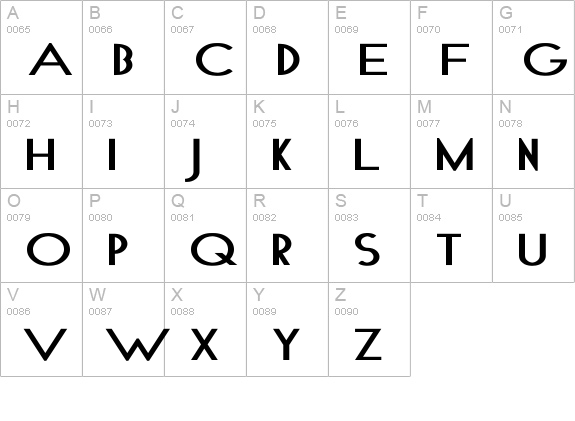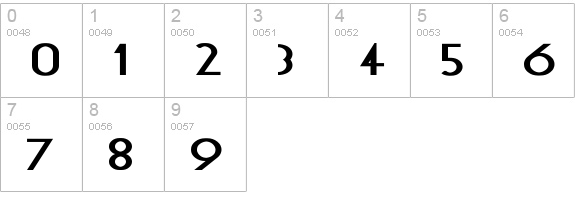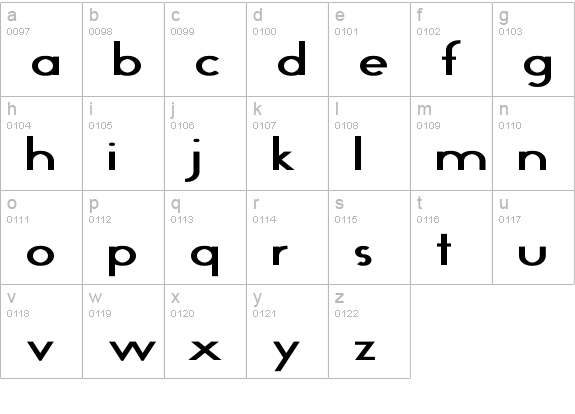
GeoPlain Wd Bold Font Details
GeoPlain Wd Bold is a strong, high-contrast variant in the GeoPlain typeface family \xE2\x80\x94 well suited to headlines, attention-grabbing titles, and strong calls-to-action.
GeoPlain Wd Bold is a modern and sleek typeface that exudes confidence and professionalism. This bold font is perfect for making a strong statement in your designs, whether it's for a logo, poster, or branding materials. With its clean lines and geometric shapes, GeoPlain Wd Bold provides a contemporary and sophisticated look that is sure to catch the eye. What's even better is that GeoPlain Wd Bold is available for free download at FontsMarket.com! Take advantage of this opportunity to enhance your projects with a high-quality font that will elevate your designs to the next level. Don't miss out on the chance to add GeoPlain Wd Bold to your font collection today.